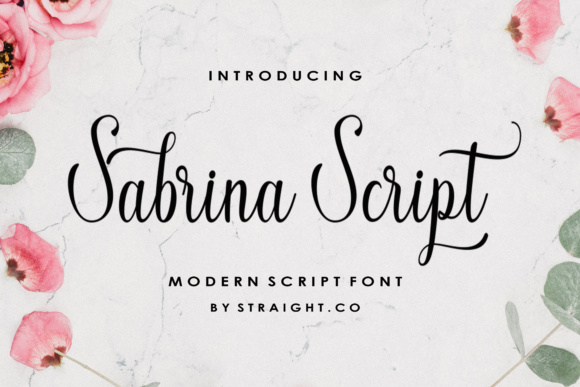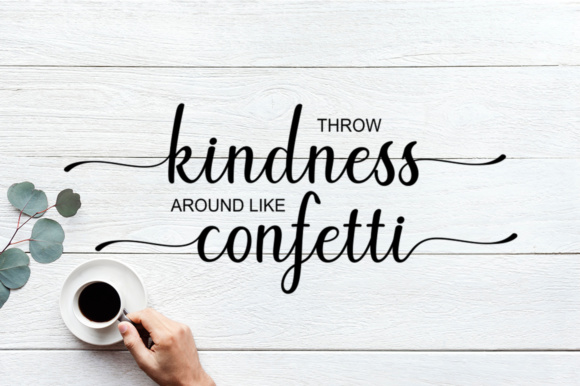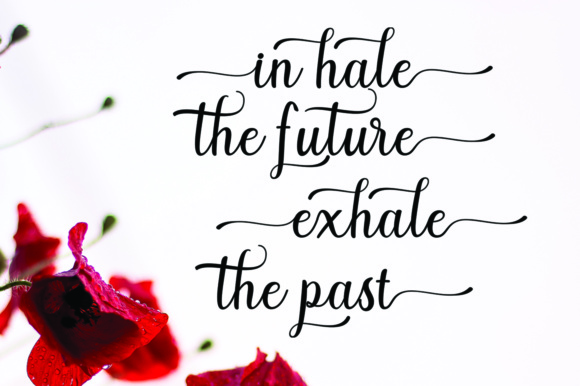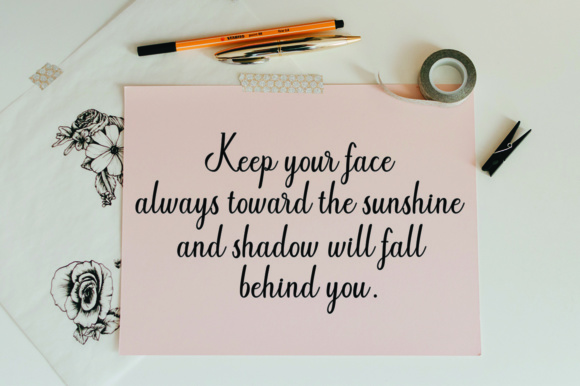
Sabrina Script Font
About the Sabrina Script Font
Add a touch of class to your work with the Sabrina Script Font, a truly exceptional typeface. The Sabrina is a modern script font with an elegant style. Toggle between the regular and swashed letters to get a handwritten, professional look.
Sabrina Script excels in applications requiring a touch of sophisticated elegance, such as logos, wedding invitations, or short-form marketing materials. Its versatility allows for both formal and slightly more casual uses, making it suitable for branding projects needing a modern yet timeless feel. Avoid using Sabrina for large blocks of body text or UI elements; its script nature compromises readability at smaller sizes.
For optimal visual balance, pair Sabrina with a clean sans-serif like Lato or Open Sans for a contemporary feel, or a classic serif like Garamond or Playfair Display for a more traditional aesthetic. A geometric sans-serif would also provide a nice contrast.
The font’s core personality is elegant yet approachable. Its subtle swashes add a touch of personality without overwhelming the design. This makes it suitable for brands aiming for a sophisticated image without appearing aloof or overly formal.